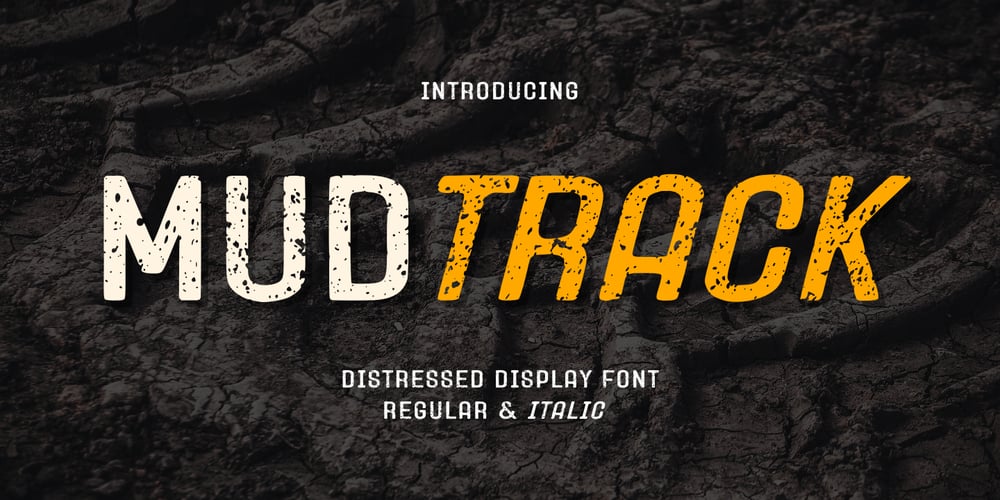
Mud Track Font Family was designed by Muhamad Yusron Billah and published by Sronstudio. Mud Track contains 2 styles and family package options. Introducing “Mud Track,” a bold distressed display font that brings rugged character and a raw edge to your designs. Perfect for creating standout headlines, posters, and branding, “Mud Track” adds a gritty, authentic feel to any project. Its unique distressed style makes it ideal for capturing attention and conveying a sense of adventure and boldness. Let “Mud Track” drive your creative work off the beaten path and make a lasting impression.Features:- 2 Style: Regular & Italic- Numeral & Punctuation- PUA Encoded- Multilingual support- Simple Installation- Work both on Mac and WindowsThank you very much ๐